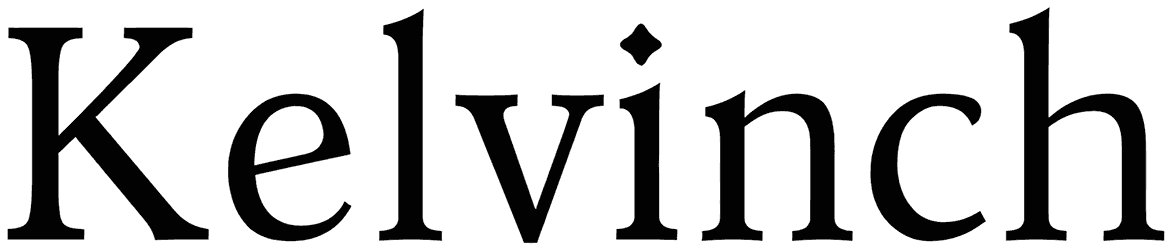
Kelvinch Font
If you’ve been looking for a unique serif font for a new project, you’re in luck, because Kelvinch is a versatile font. This font reflects a basic style that is compatible with almost any project and can be used in a variety of modern designs such as logos, websites, and posters.
Kelvinch is a standard serif font for body text. Most of the Latin blocks are complete so it supports many languages. It also contains Armenian, Greek, Georgian and Cyrillic.
This was my first font but it has continued to be improved and fixed since it’s first release many years ago. It is now on it’s third major revision.